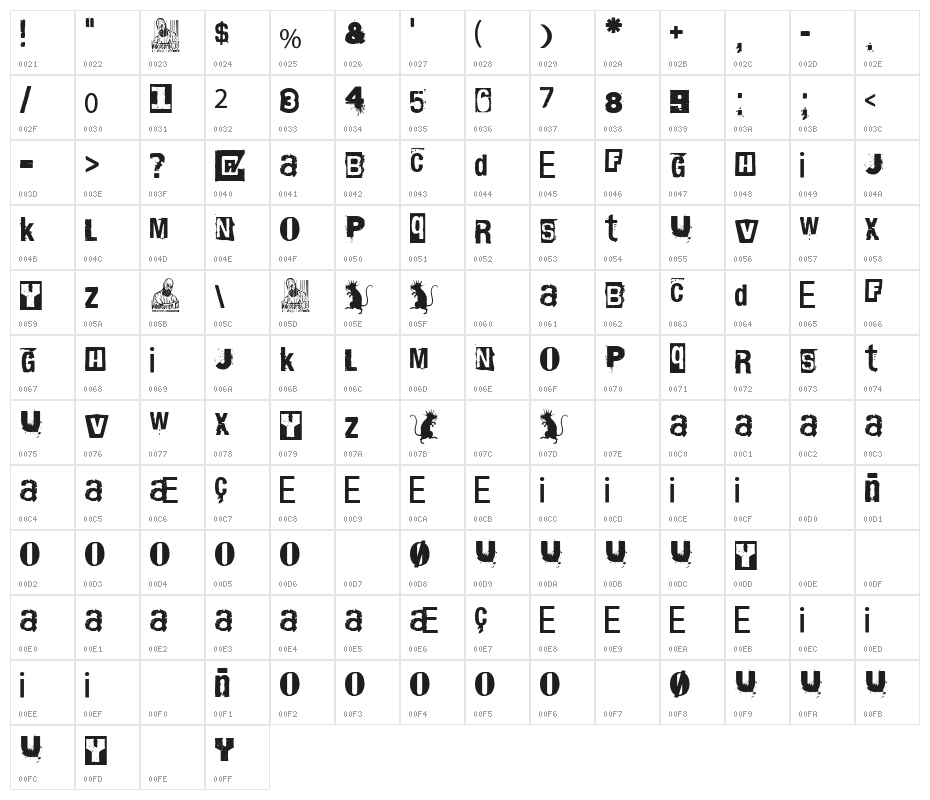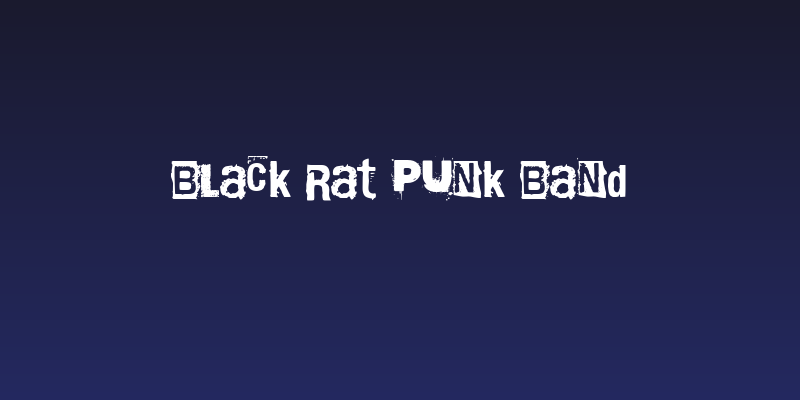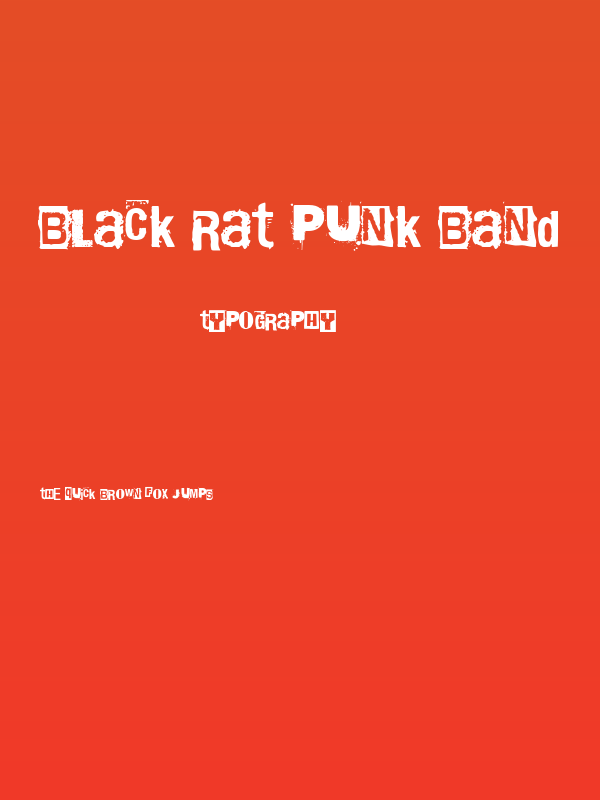
Black Rat Punk Band Font
This font exudes a gritty, rebellious aesthetic reminiscent of punk rock culture. Each character is uniquely distressed, featuring rough edges and uneven textures that give it a raw, handmade feel. The letters vary in style, with some appearing as if they were cut from different materials and pasted together, enhancing its chaotic and energetic vibe. The numbers and special characters follow the same rugged theme, making the font perfect for designs that require an edgy, unconventional look.
| Overall Style | Punk, Grunge, Rebellious |
| Use Case | Headlines, Posters, Album Covers |
| Proposed Projects | Ideal for punk band posters, album covers, streetwear branding, and edgy graphic designs. |